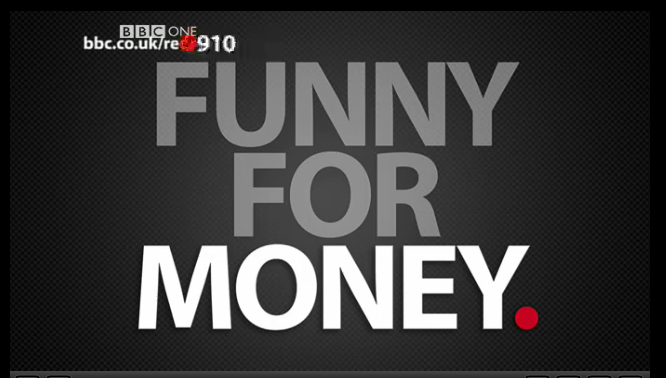
J jamied95 macrumors 6502 Original poster Mar 18, 2011 #1 Does anybody know what font the BBC are using for their Comic Relief coverage this evening?
J jamied95 macrumors 6502 Original poster Mar 18, 2011 #3 This: Attachments Screen shot 2011-03-18 at 21.31.39.png 190.1 KB · Views: 139
J jamied95 macrumors 6502 Original poster Mar 18, 2011 #6 I thought that, but the U isn't the same. Edit: strike that, yep, you're right! Cheers!